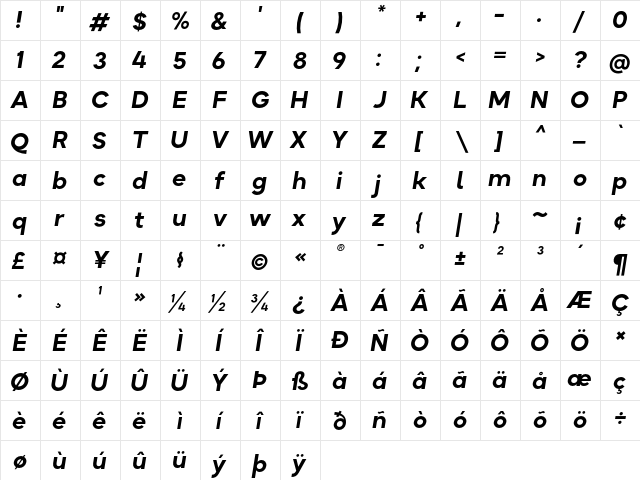
Okta Bold Italic
| Foundry | Groteskly Yours Foundry |
| Designer | Eugene Tantsurin |
Design Context for Okta Typeface
Okta is a composed and adaptable typeface that performs quietly and consistently across a wide range of design contexts. Its italic angle brings a sense of urgency and motion to the letterforms. The heavy weight commands attention and anchors typographic hierarchies.